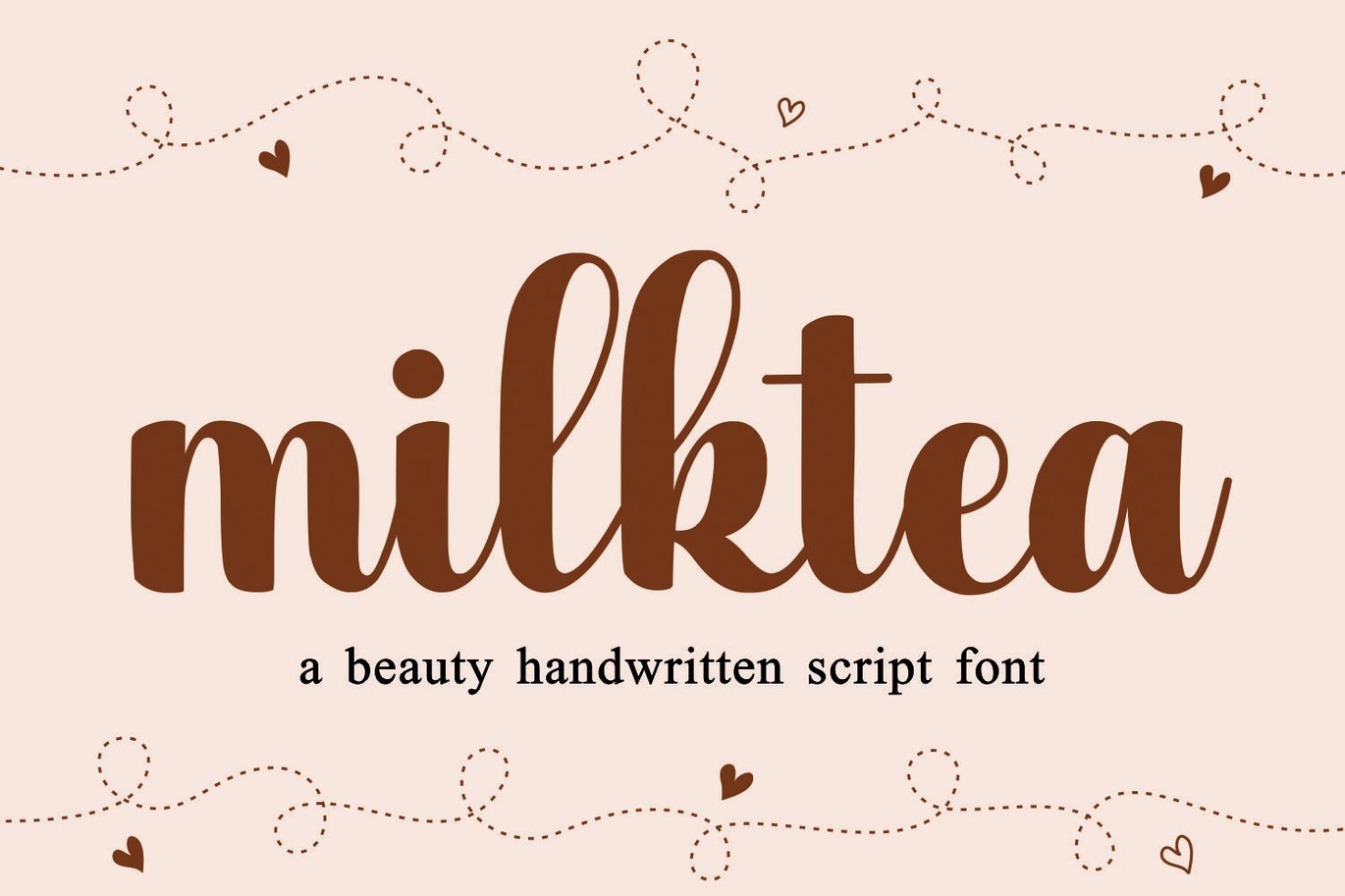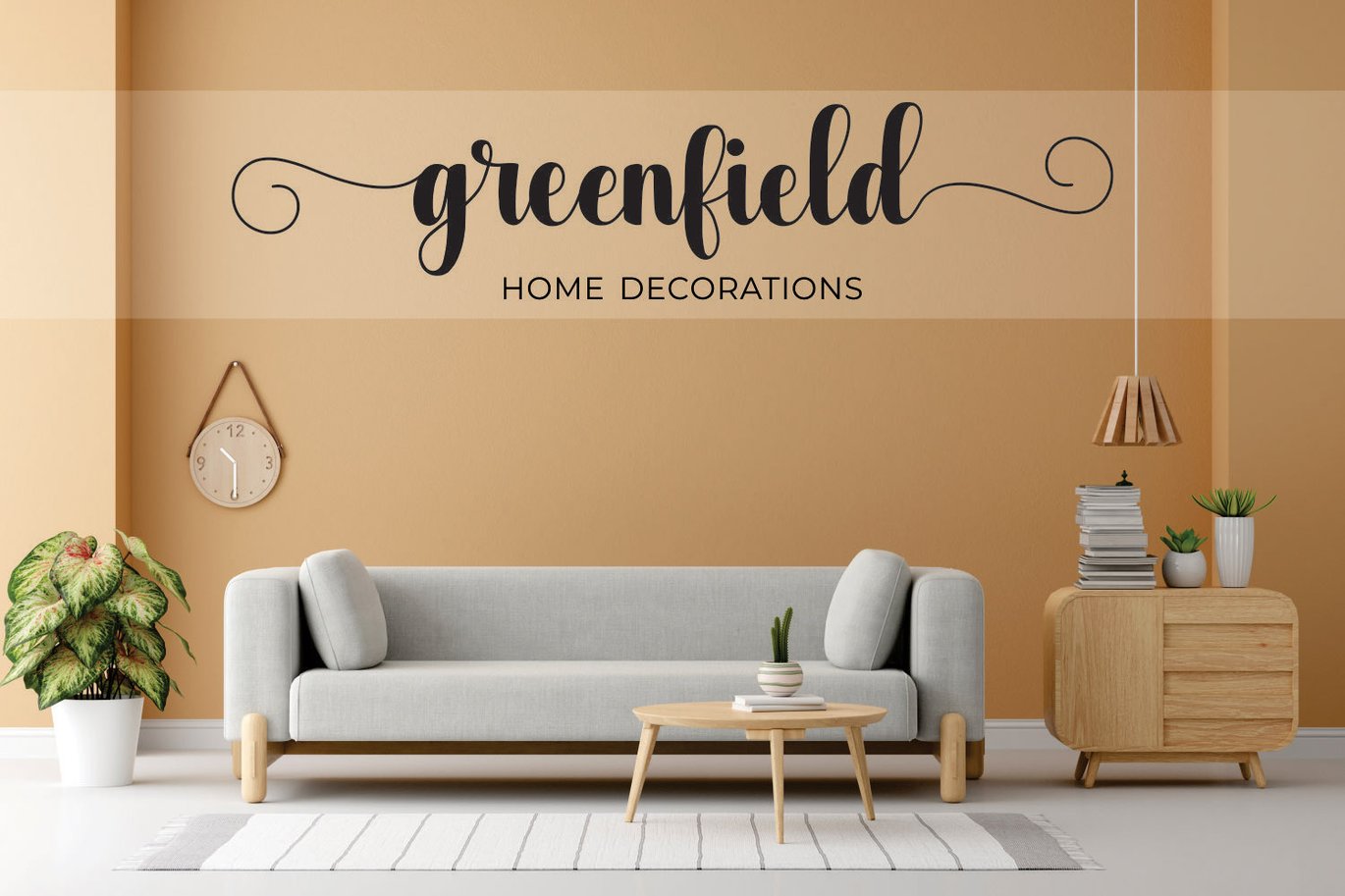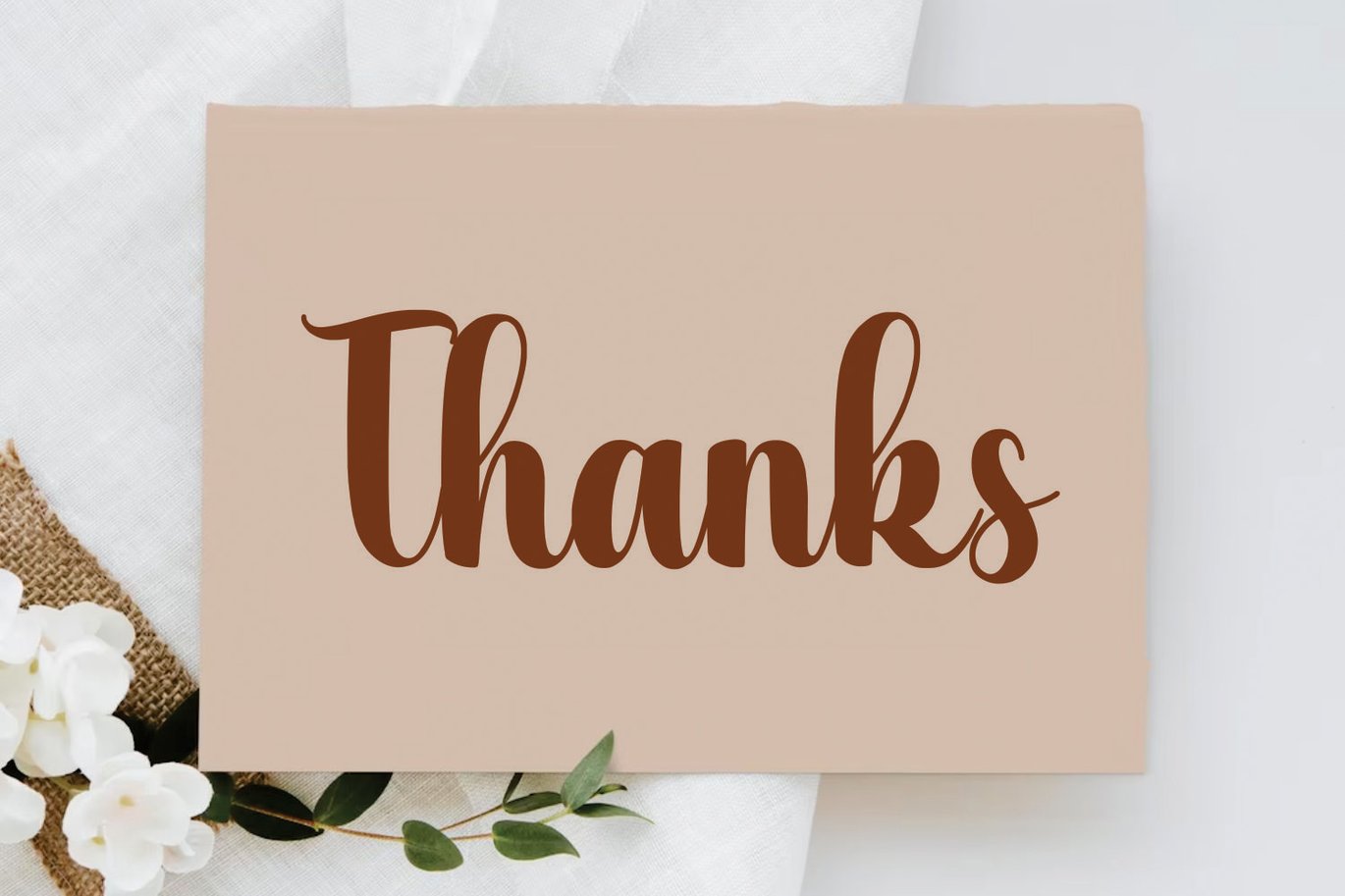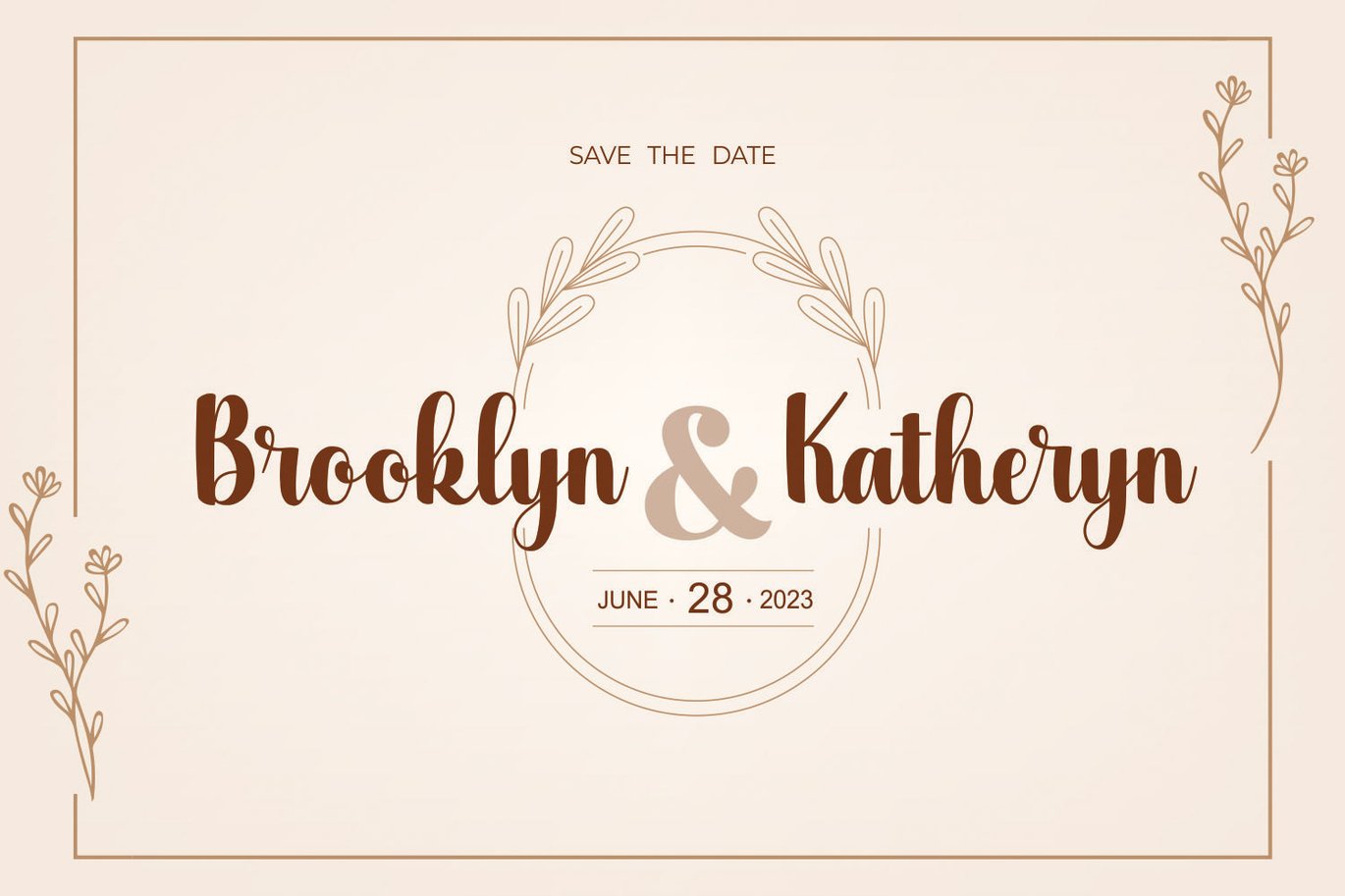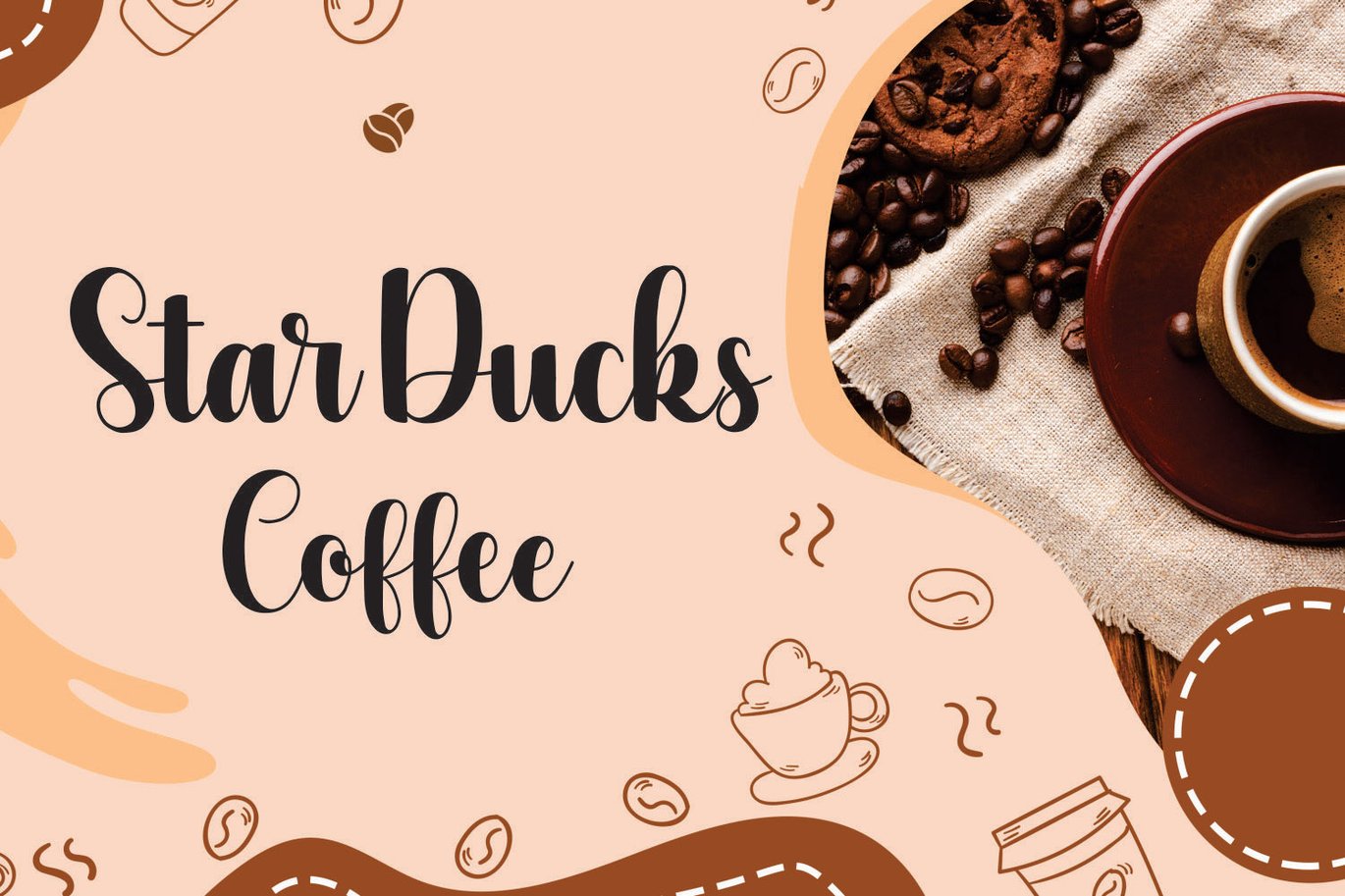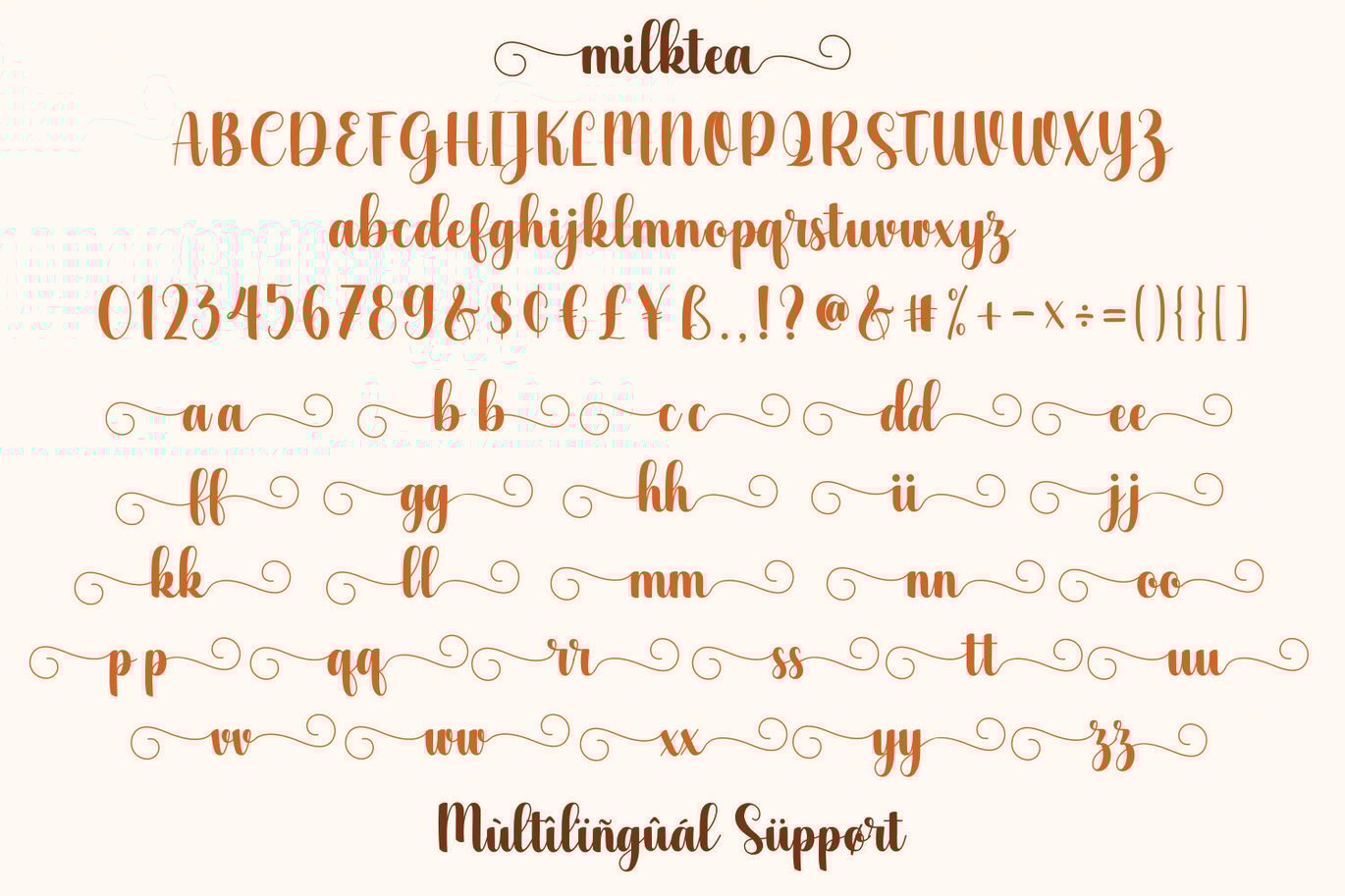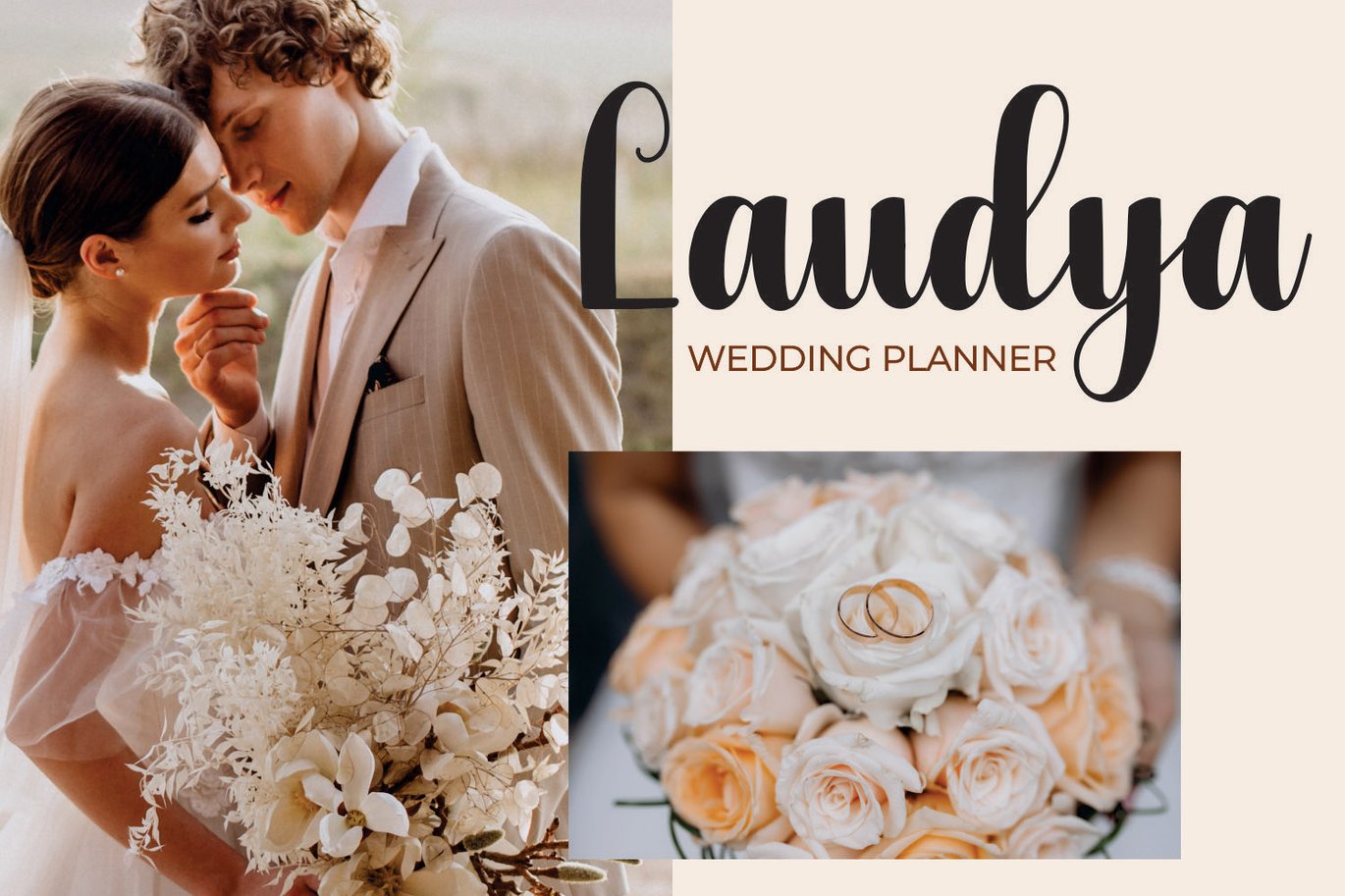
Milktea Wedding Font
Introducing Milktea Font, a beautiful and elegant typeface perfect for adding a soft touch to your designs. With its smooth curves and unique style, this font is versatile and can be used for various projects, from wedding invitations to branding materials.
Unlock the full potential of your creativity with Milktea Font. Its PUA encoding ensures easy access to all of the glyphs, swashes, and ligatures, making it the best choice for creating eye-catching logos, branding, and quotes. The latest style letters are perfect for wall displays, wedding invitations, social media posts, advertisements, product packaging, product designs, labels, photography, watermarks, invitations, and stationery.